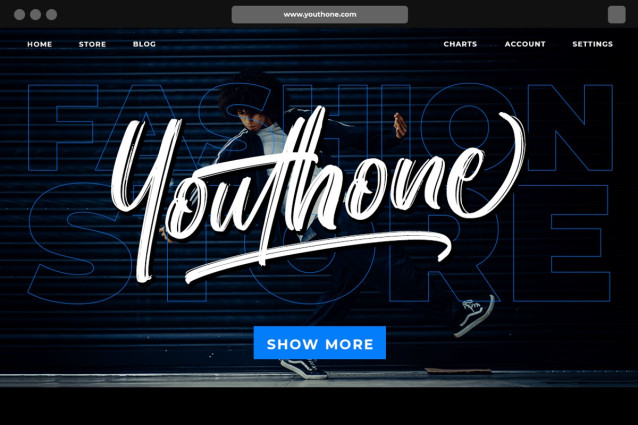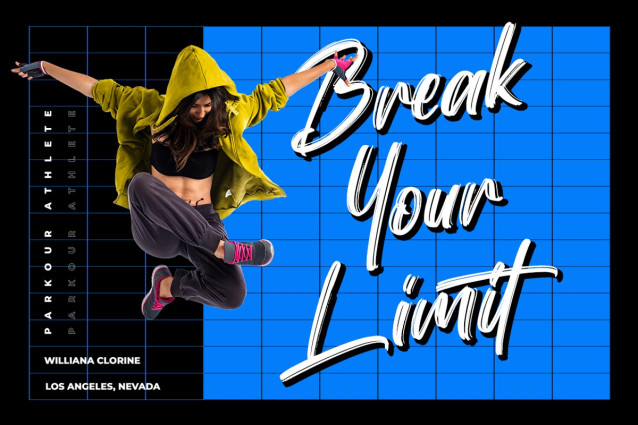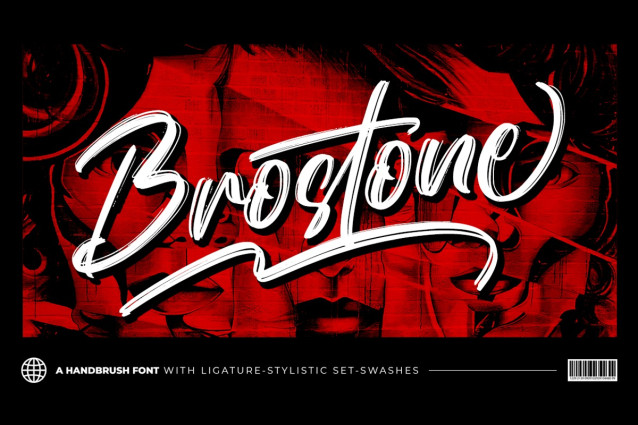
Brostone Brush Font
Brostone Brush Font is a unique brush font, perfect for use in modern design projects. This font has a slightly aggressive edge, and works well in displays for use in digital media.